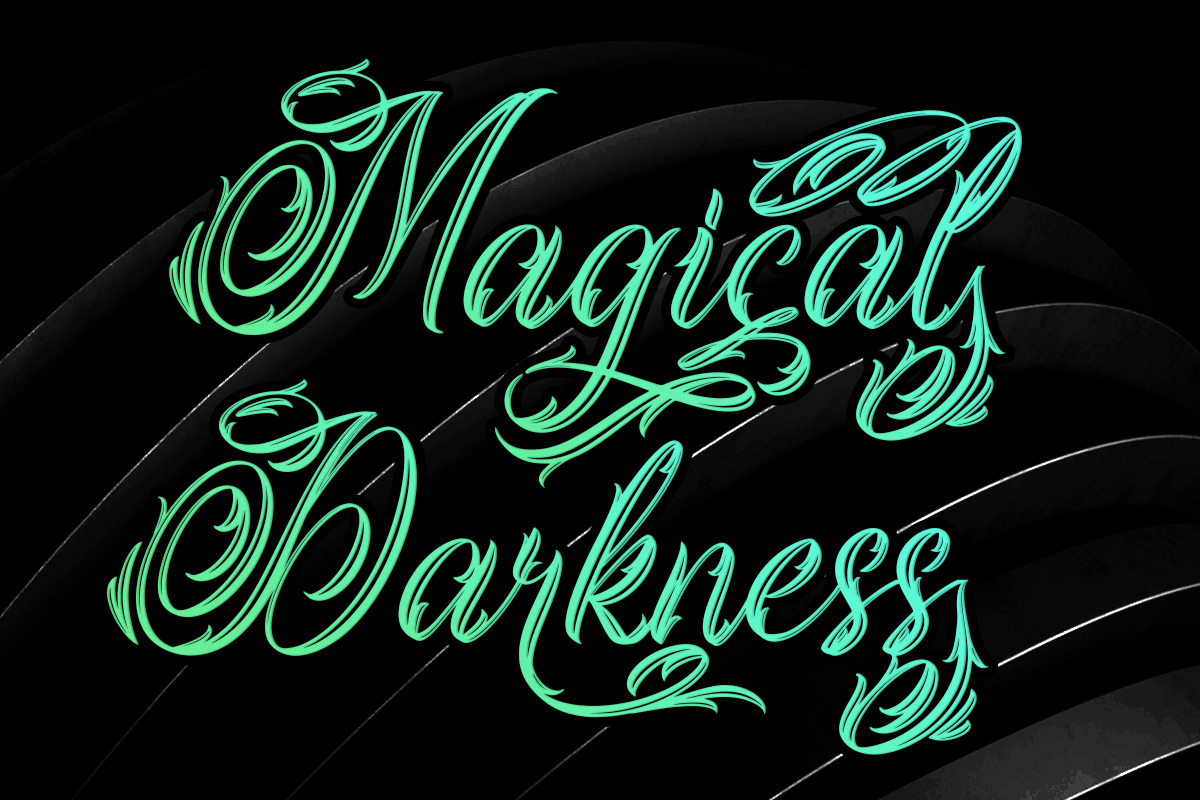
Magical Darkness | Tattoo Font
Magical Darkness is a calligraphy font with a handwritten style. This font is designed in a unique and mysterious way. with a frightening appearance, and loud so it is suitable to be used to add to your font collection. You can use this font for album covers, logos, tattoos, posters, t-shirt designs and so on.